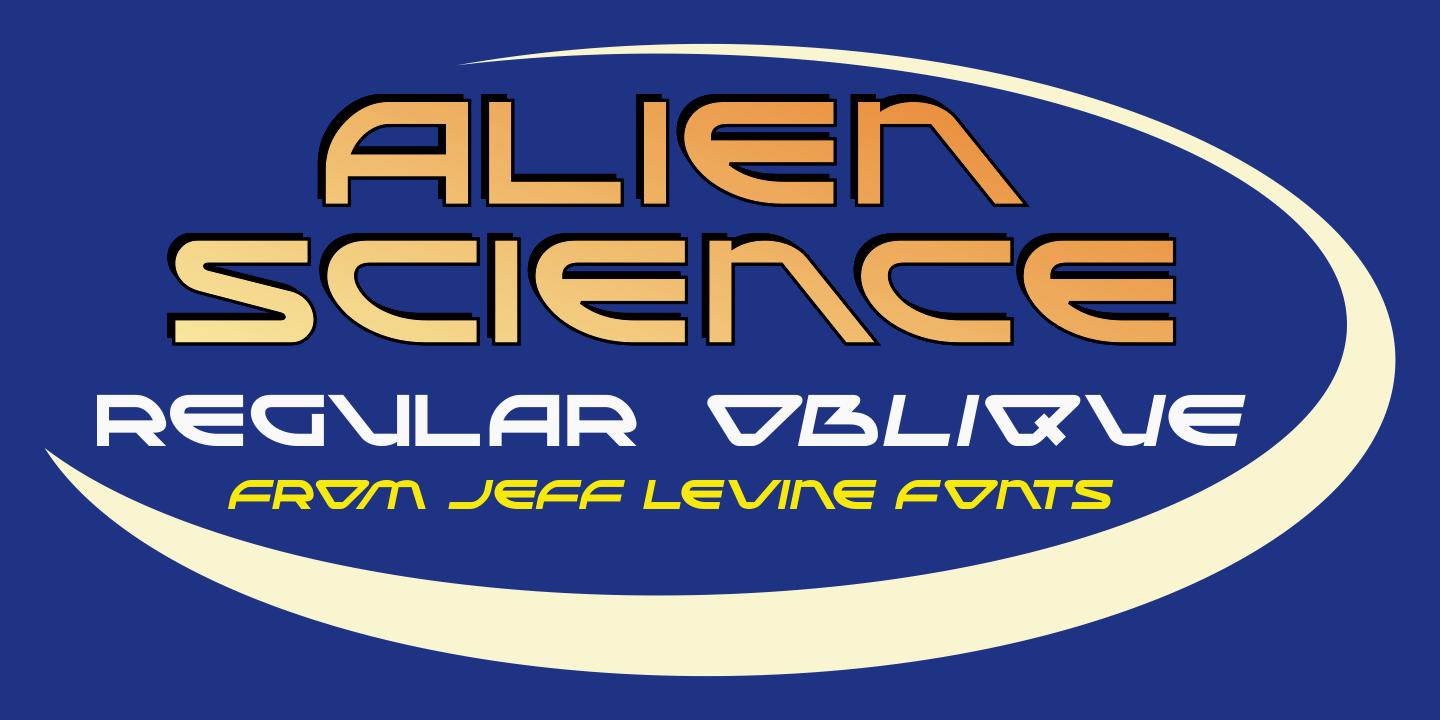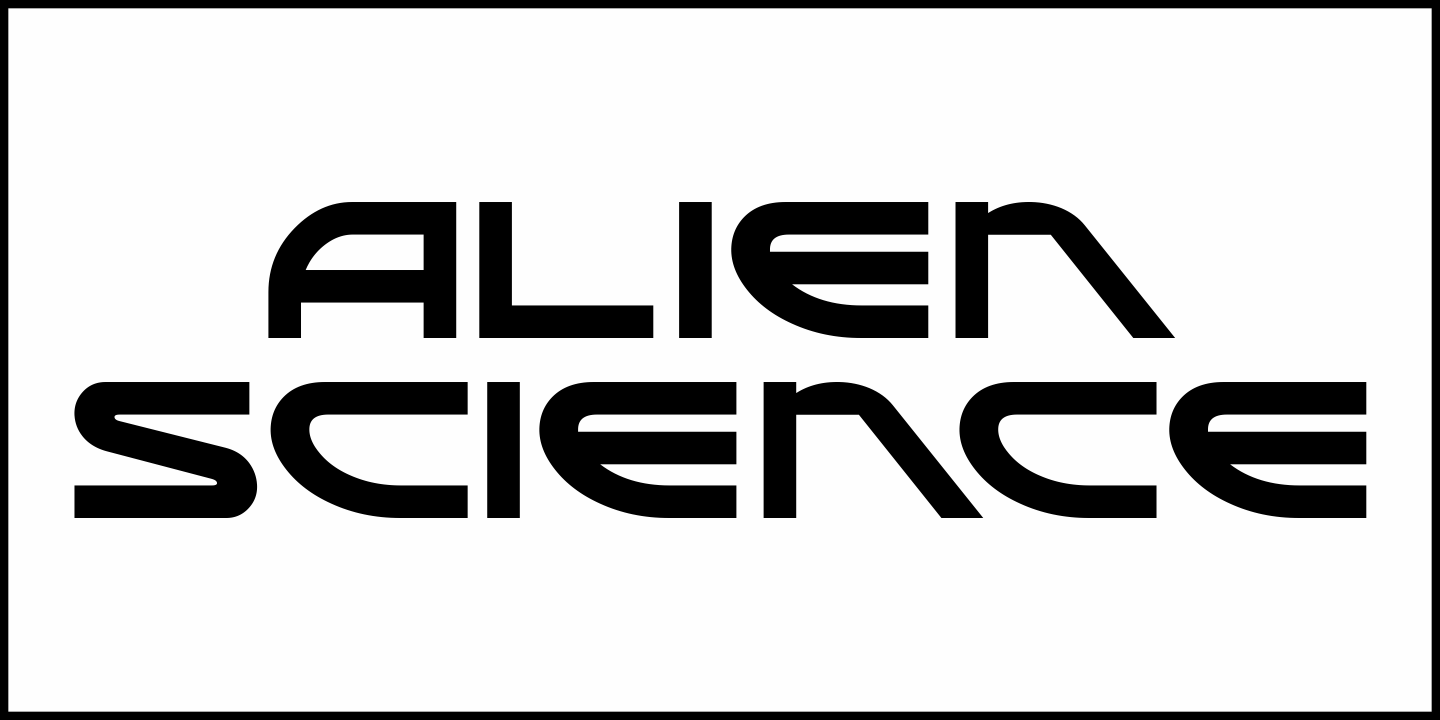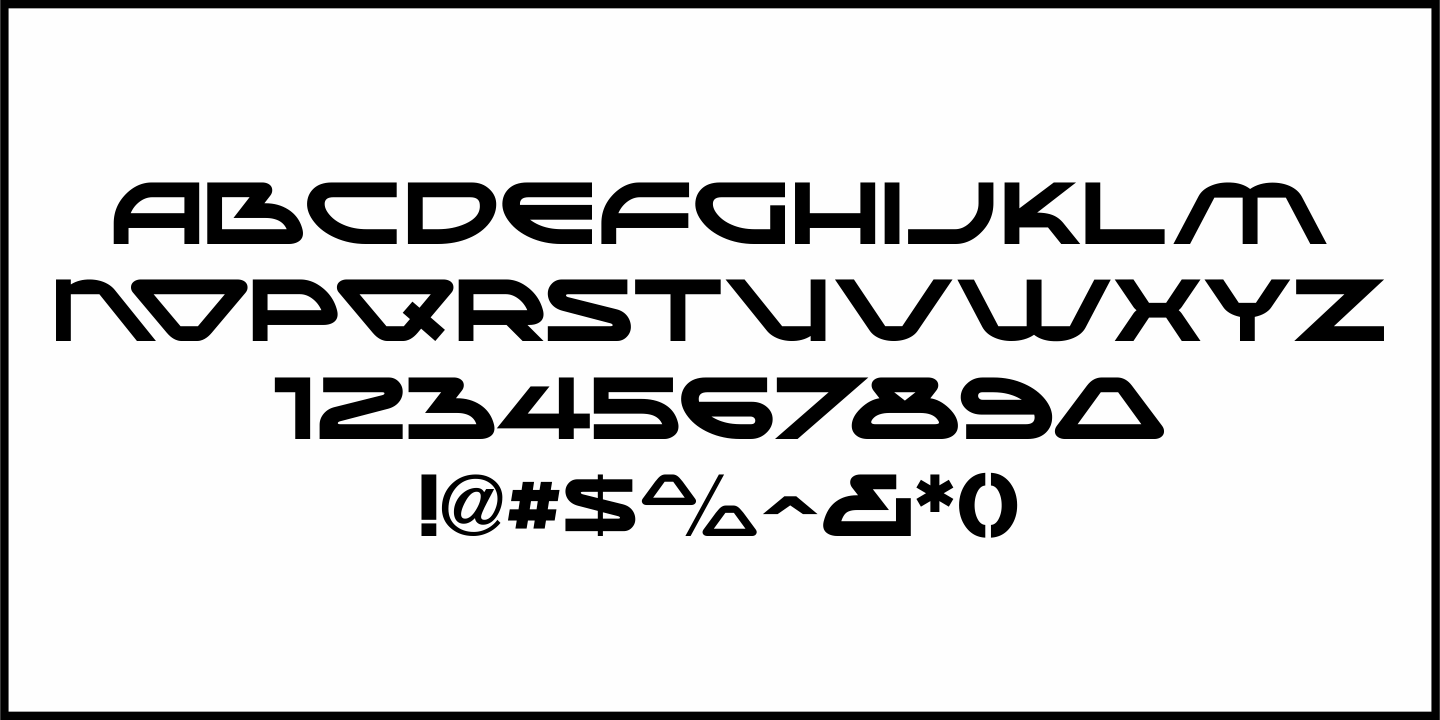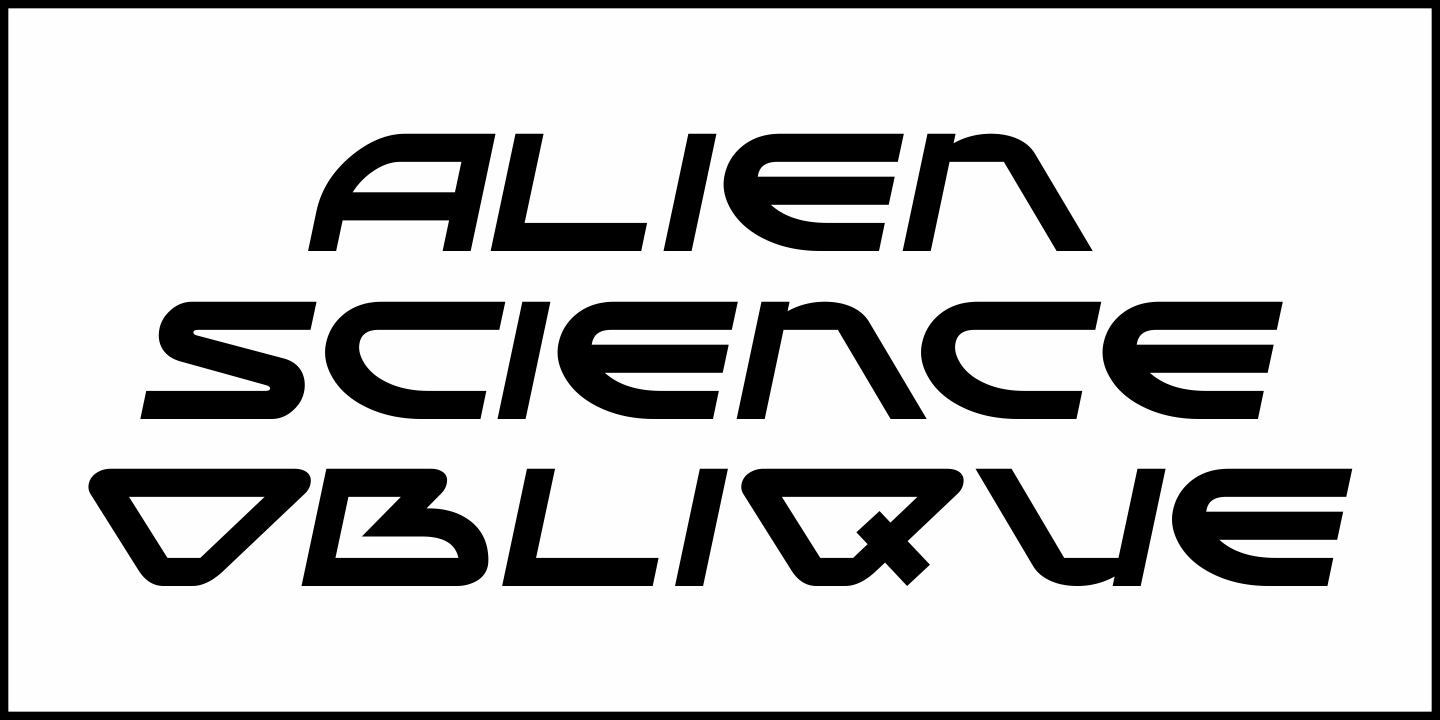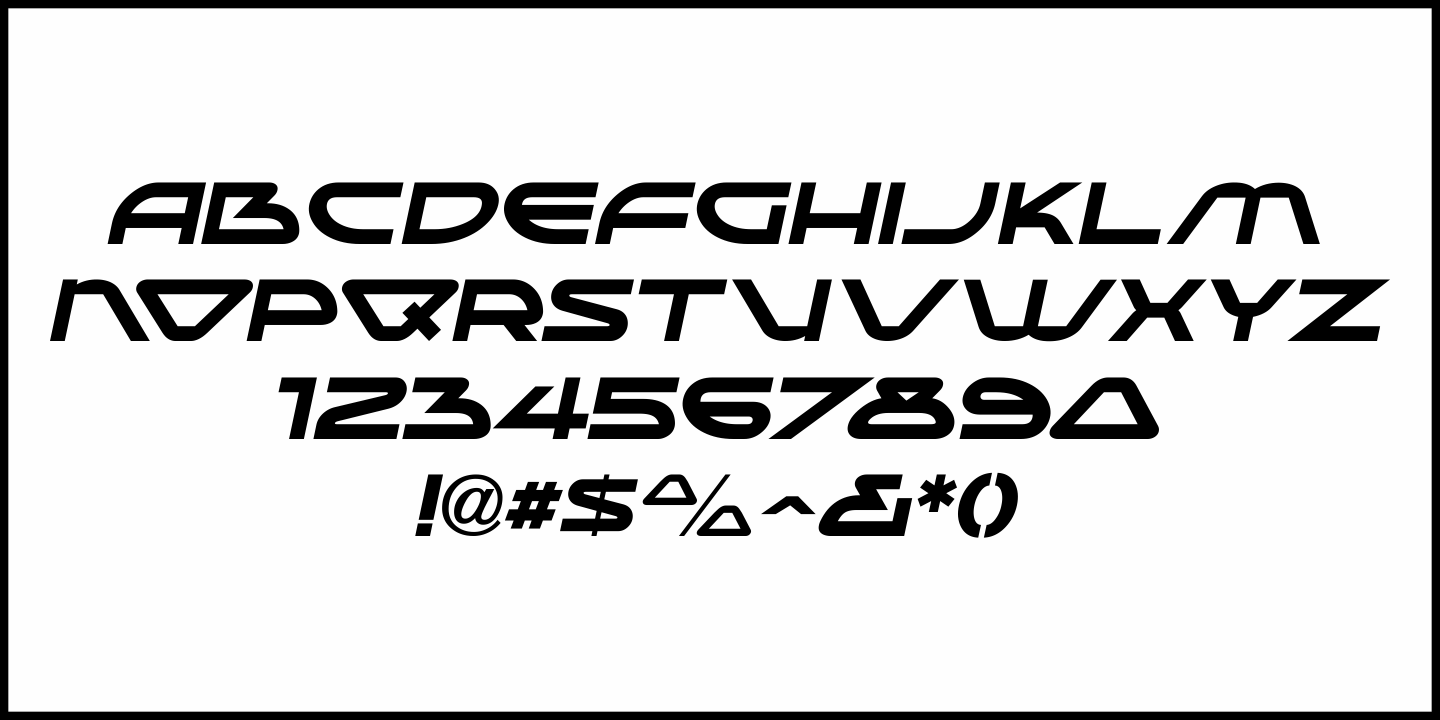
Alien Science
A mid-century ad for the women's fashion line Casino Classics featured sans serif hand lettering with a distinctively futuristic style that foresaw the techno font designs of the 1970s and 1980s.
Wide and angular, this typeface effectively conjures up images of space travel, computer sciences and alien encounters.
Now available as Alien Science JNL, it is offered in both regular and oblique versions.